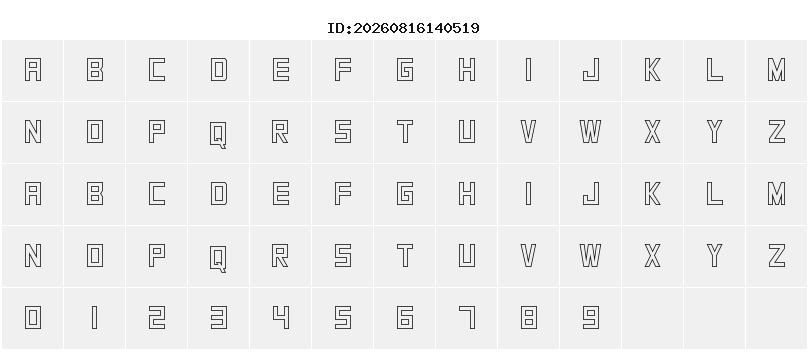
SquareFont Outline Preview
• Font Name: SquareFont Outline
• Full Font Name: SquareFont Outline
• Version: Version 1.00 August 1, 2011, initial release
About SquareFont Outline.ttf
SquareFont Outline.ttf is a modern, elegant sans-serif font designed for ultimate readability and visual harmony. Perfect for branding, headlines, web design, and print materials.